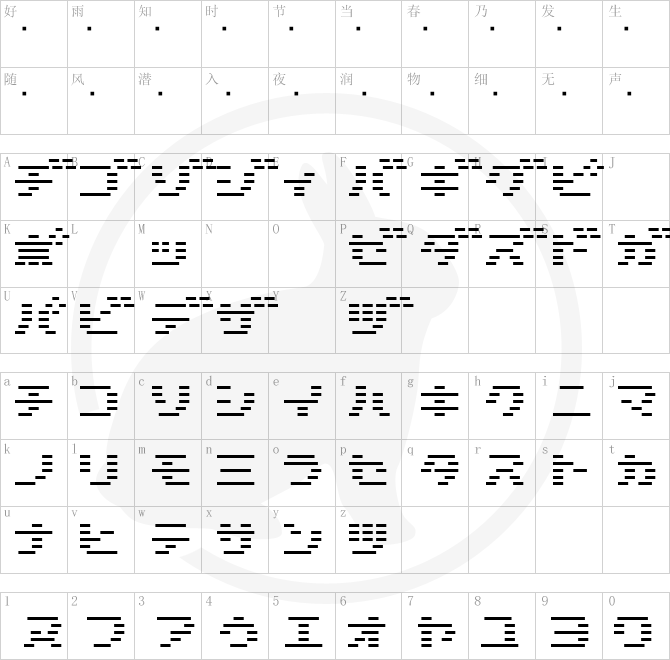
- Font Name:D3 DigiBitMapism Katakana
D3-DigiBitMapism-Katakana.ttf is a very beautiful artistic font, D3-DigiBitMapism-Katakana.ttf is widely used in the design and printing of various books and pictures,D3-DigiBitMapism-Katakana.ttf has a strong visual impact,D3-DigiBitMapism-Katakana.ttf is a commonly used font in newspapers, magazines and books, and is used in posters, e-commerce Poster design, store design, logo design, font design and other fields.D3-DigiBitMapism-Katakana.